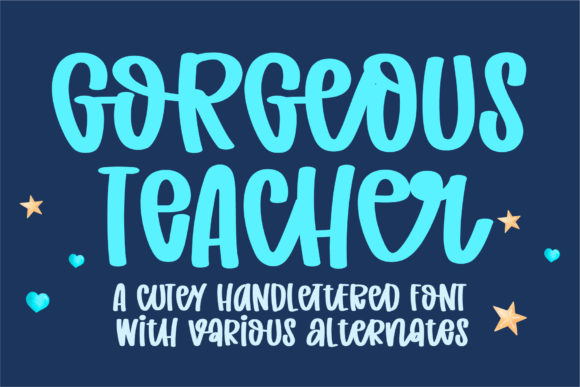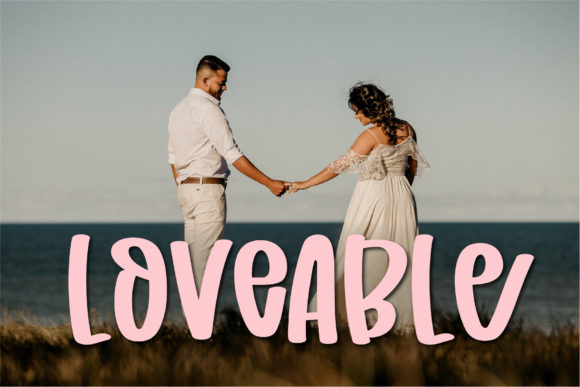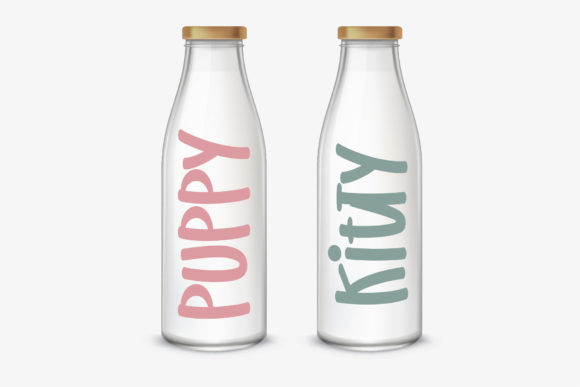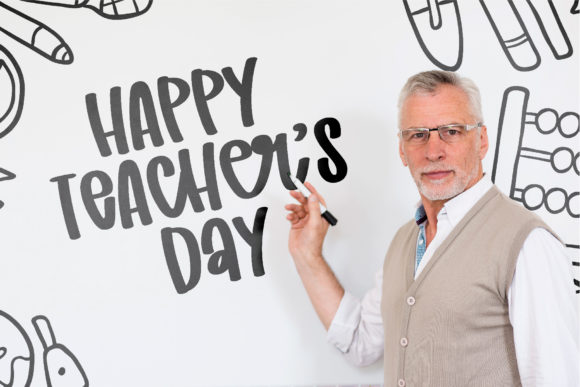
Gorgeous Teacher Font
About the Gorgeous Teacher Font
Introducing the Gorgeous Teacher Font, a beautifully crafted typeface designed to elevate your creative projects. Gorgeous Teacher is a cute and friendly handwritten font. It is the best choice for creating eye catching logos, branding and quotes. This font is PUA encoded which means you can access all of the glyphs and swashes with ease!
Gorgeous Teacher’s playful, approachable style makes it ideal for projects needing a friendly, hand-crafted feel. It excels in logos, short headlines, social media graphics, and packaging for products targeting a younger demographic or emphasizing a sense of warmth and approachability. Avoid using it for large blocks of body text or UI elements where readability is paramount; its informal nature can hinder legibility in extended use.
Its inherent friendliness makes it a great fit for brands focused on education, children’s products, crafts, or anything emphasizing a personal touch. The font’s overall personality is best described as cheerful and informal, conveying kindness and approachability.
Gorgeous Teacher Font Usage Examples
Gorgeous Teacher Font Example